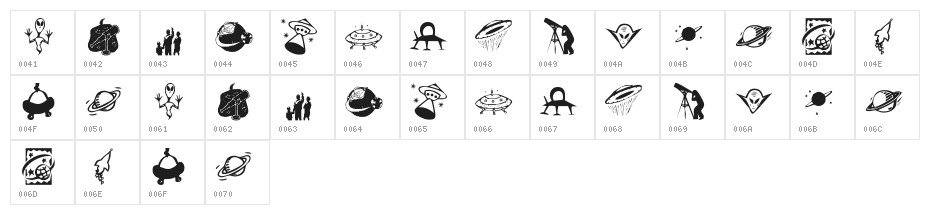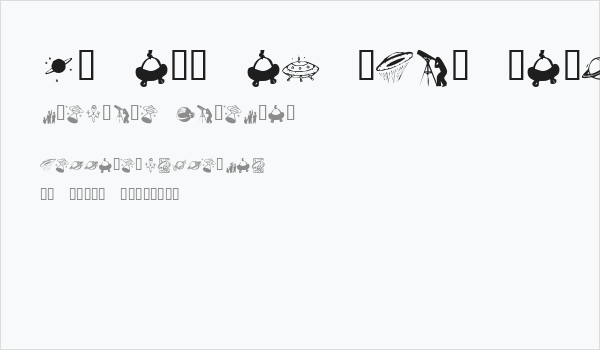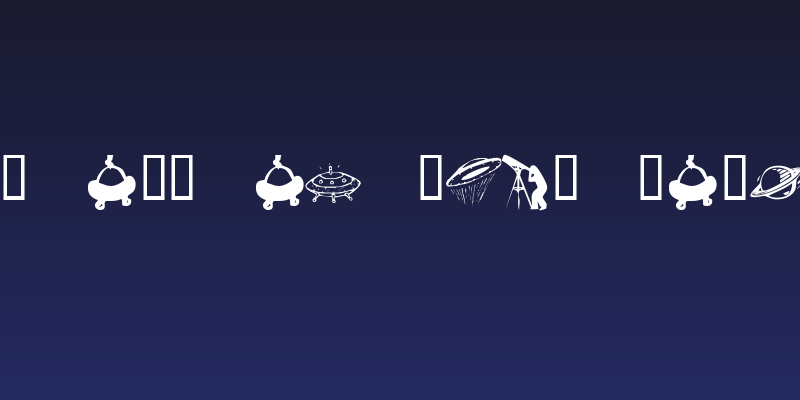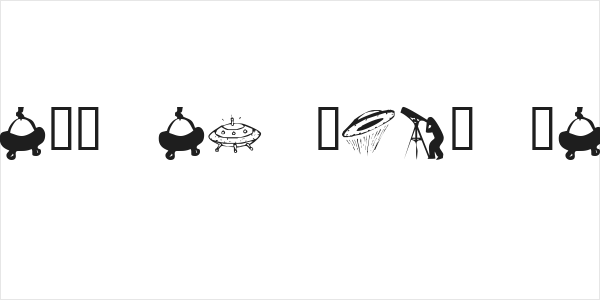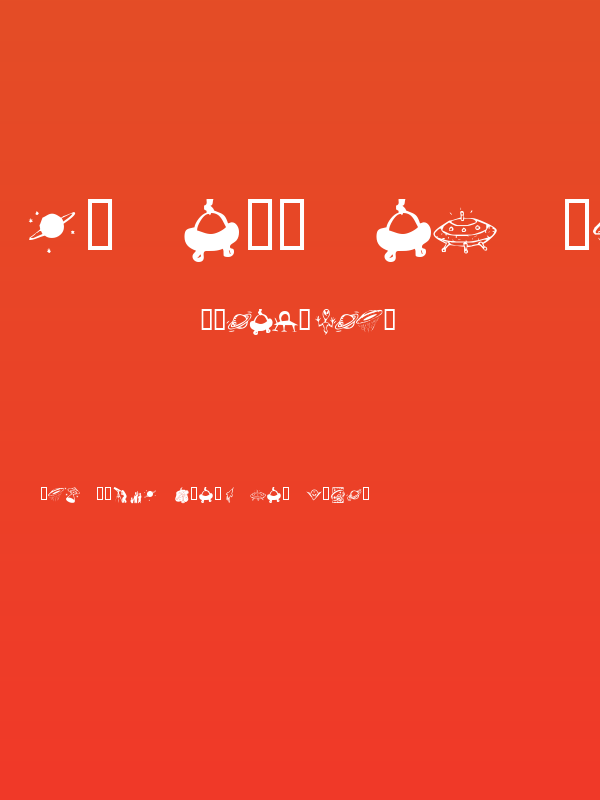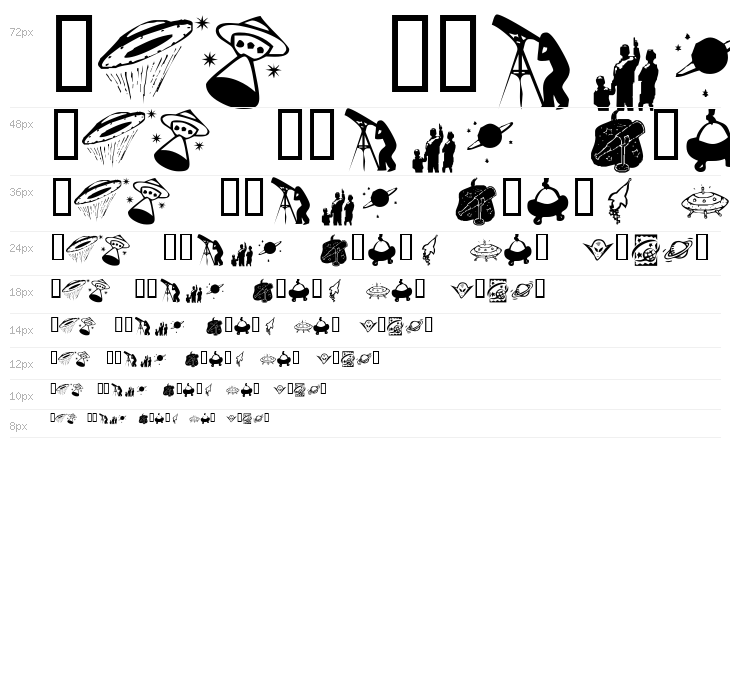
KR Out Of This World Font
KR Out Of This World Description
This font features a collection of whimsical and imaginative alien and space-themed illustrations. Each character is represented by a unique graphic, including aliens, spaceships, planets, and other cosmic elements. The designs are playful and cartoonish, capturing a sense of fun and adventure. The characters are bold and easily recognizable, making them suitable for projects that require a touch of creativity and fantasy. The overall style is decorative and thematic, perfect for adding a unique flair to any design.
| Use Case | Logos, Posters, Creative projects |
| Proposed Projects | Ideal for children's books, sci-fi themed party invitations, educational materials about space, or creative posters. |